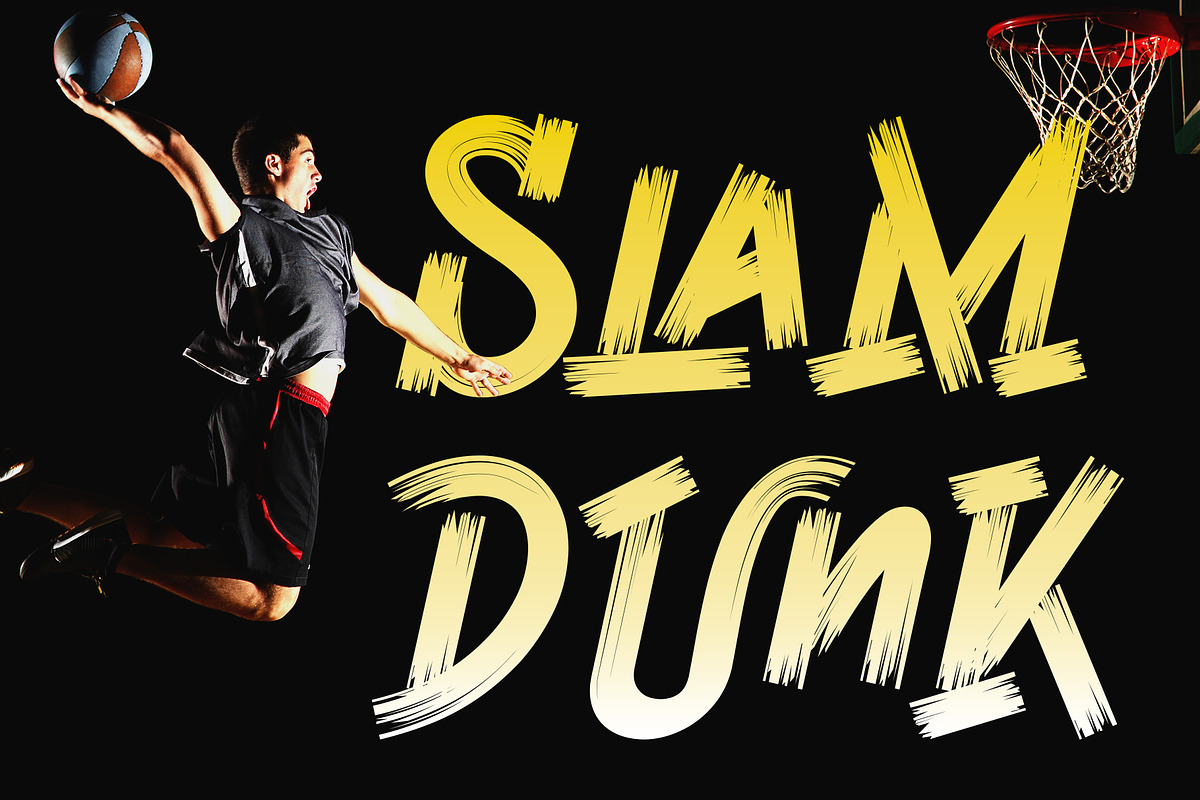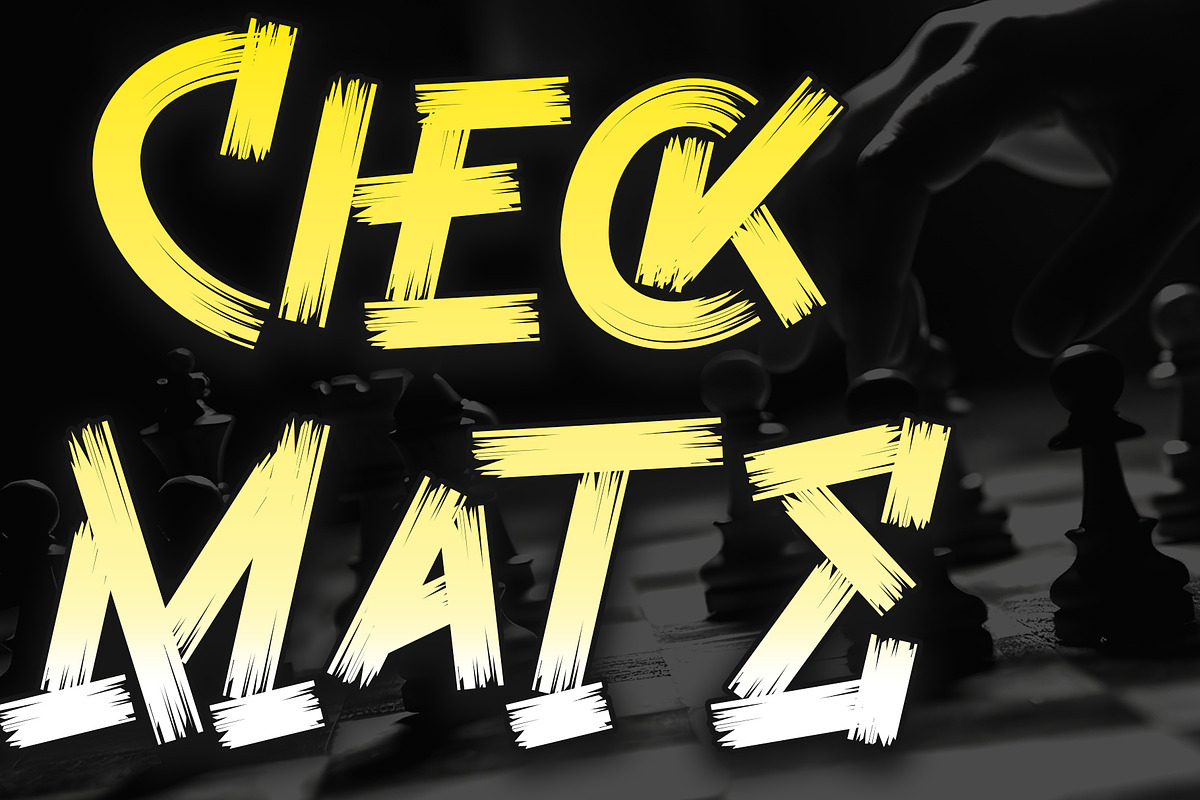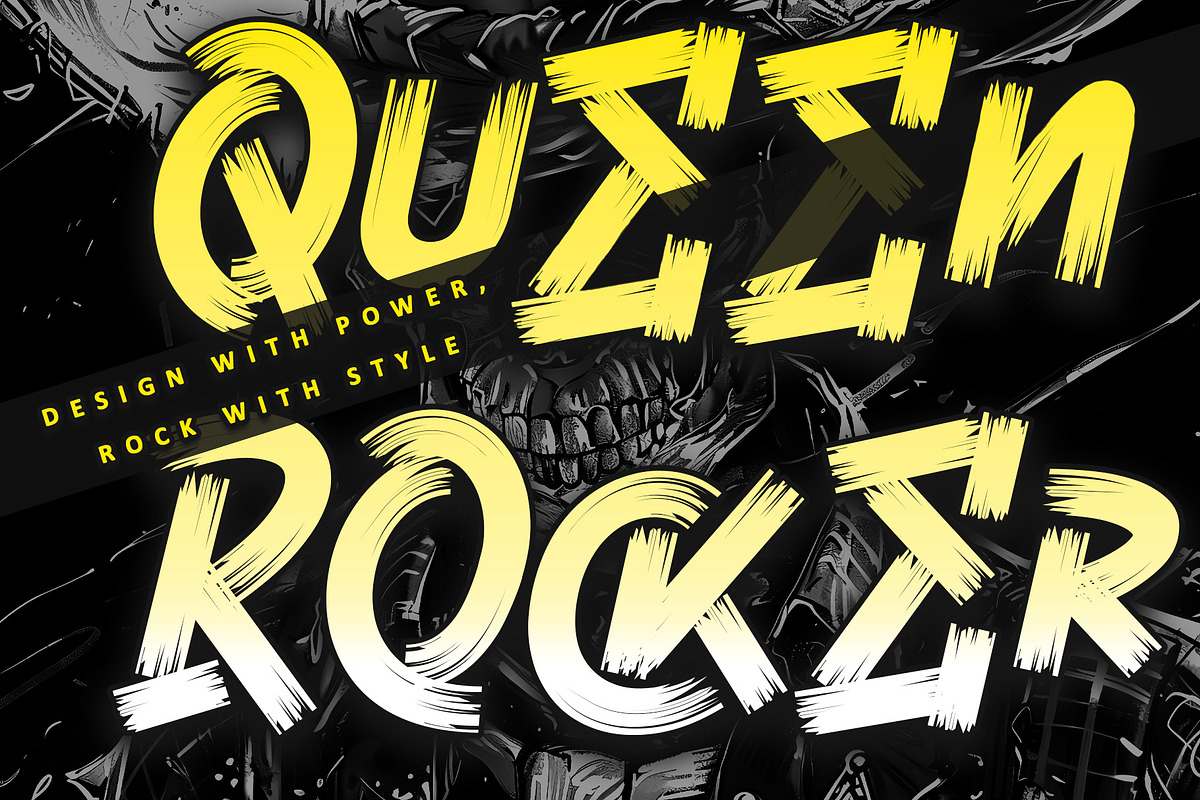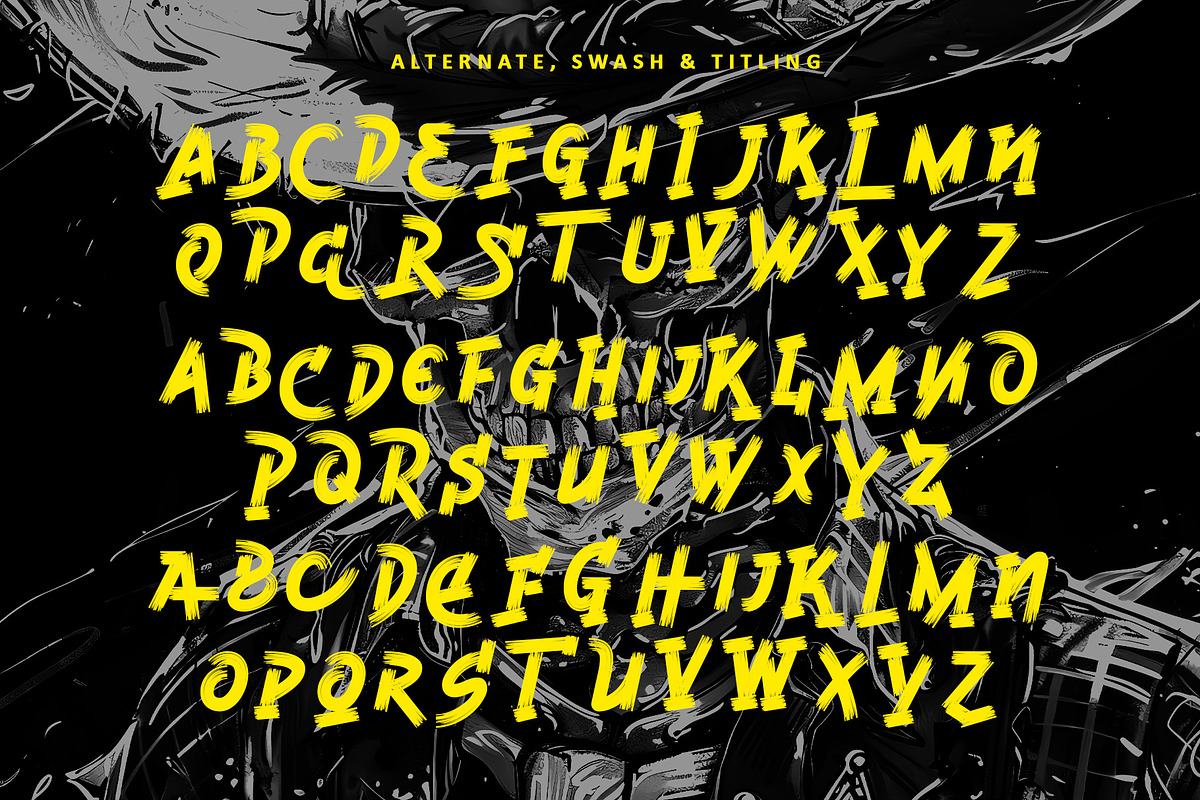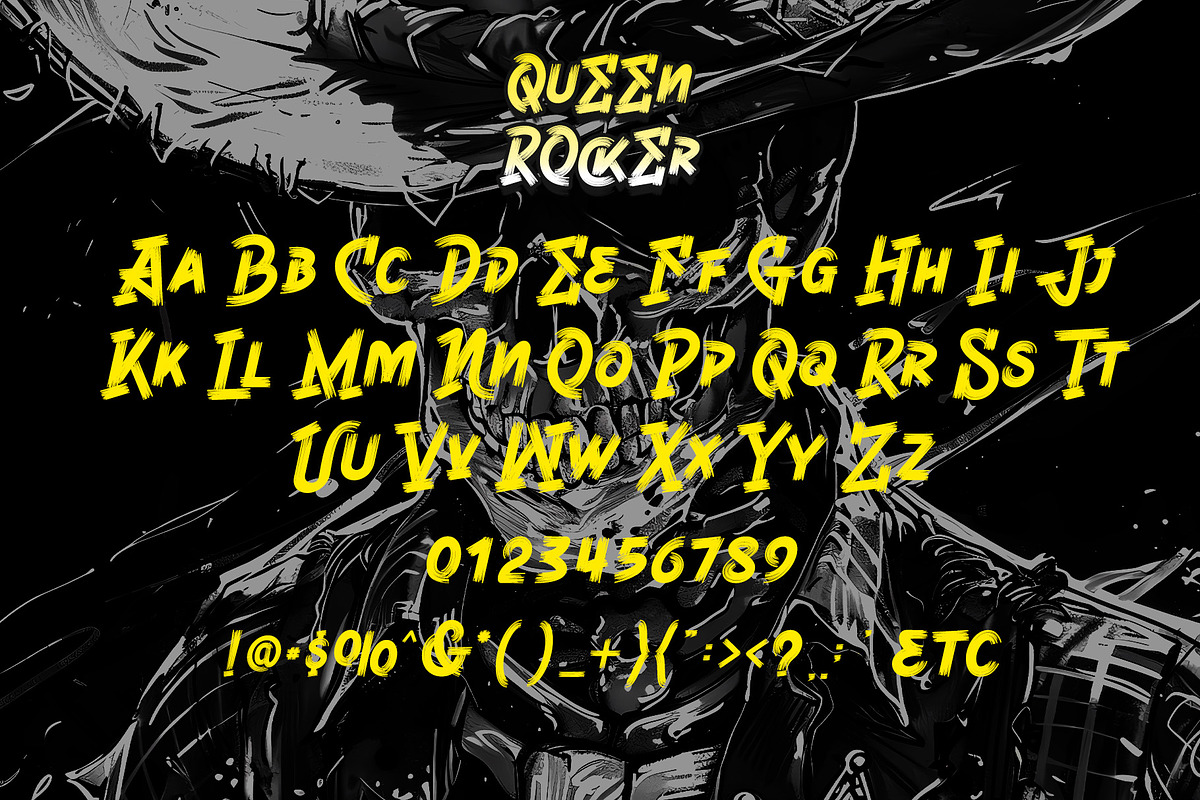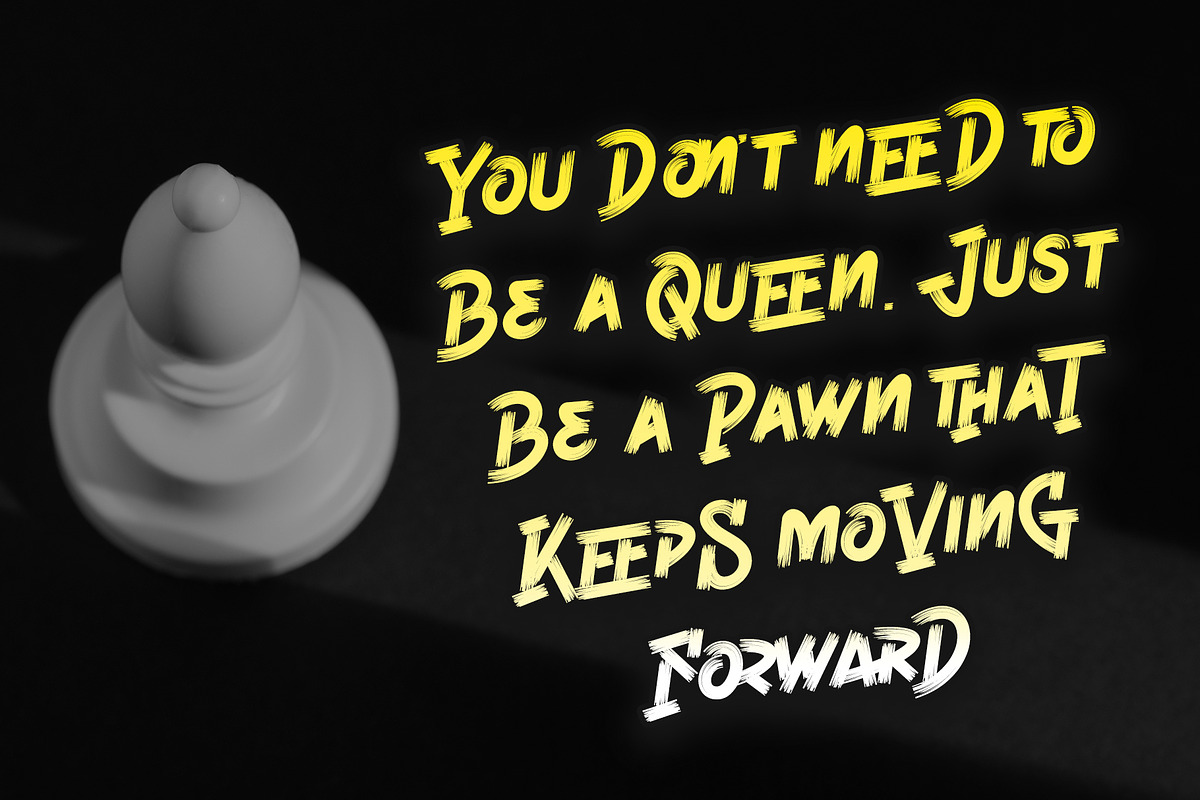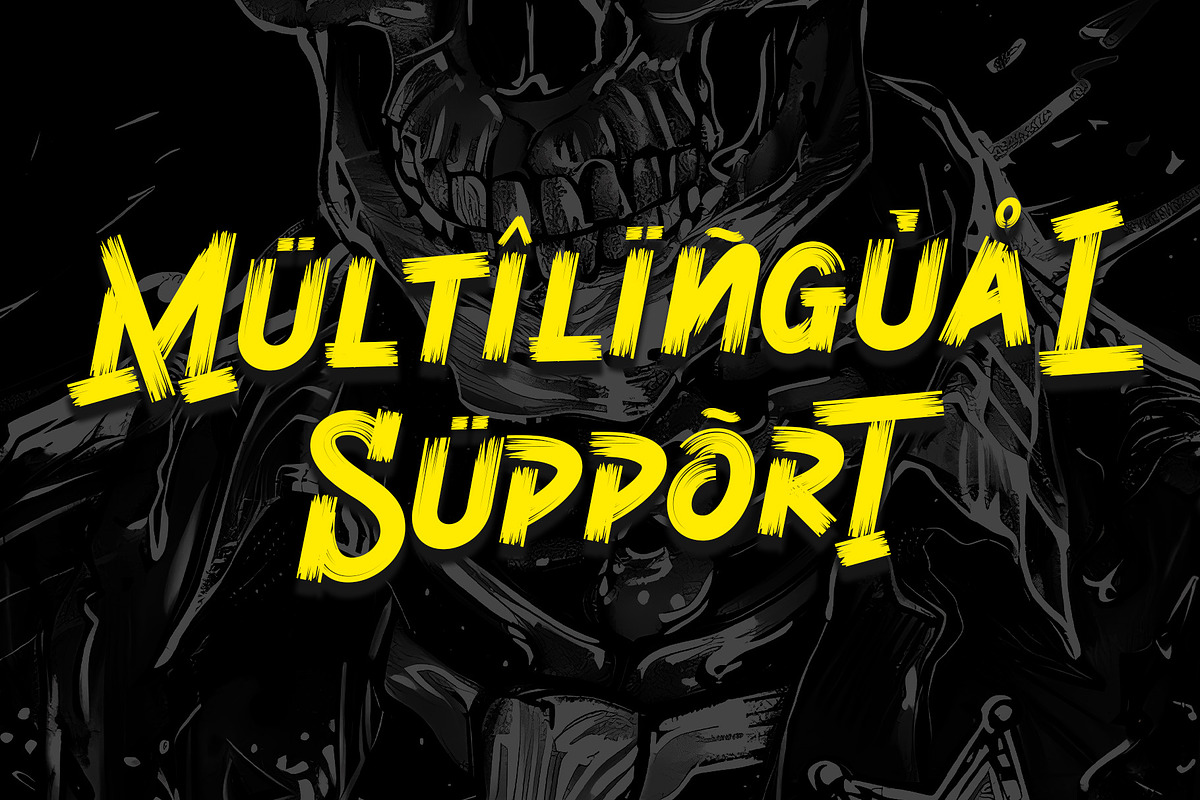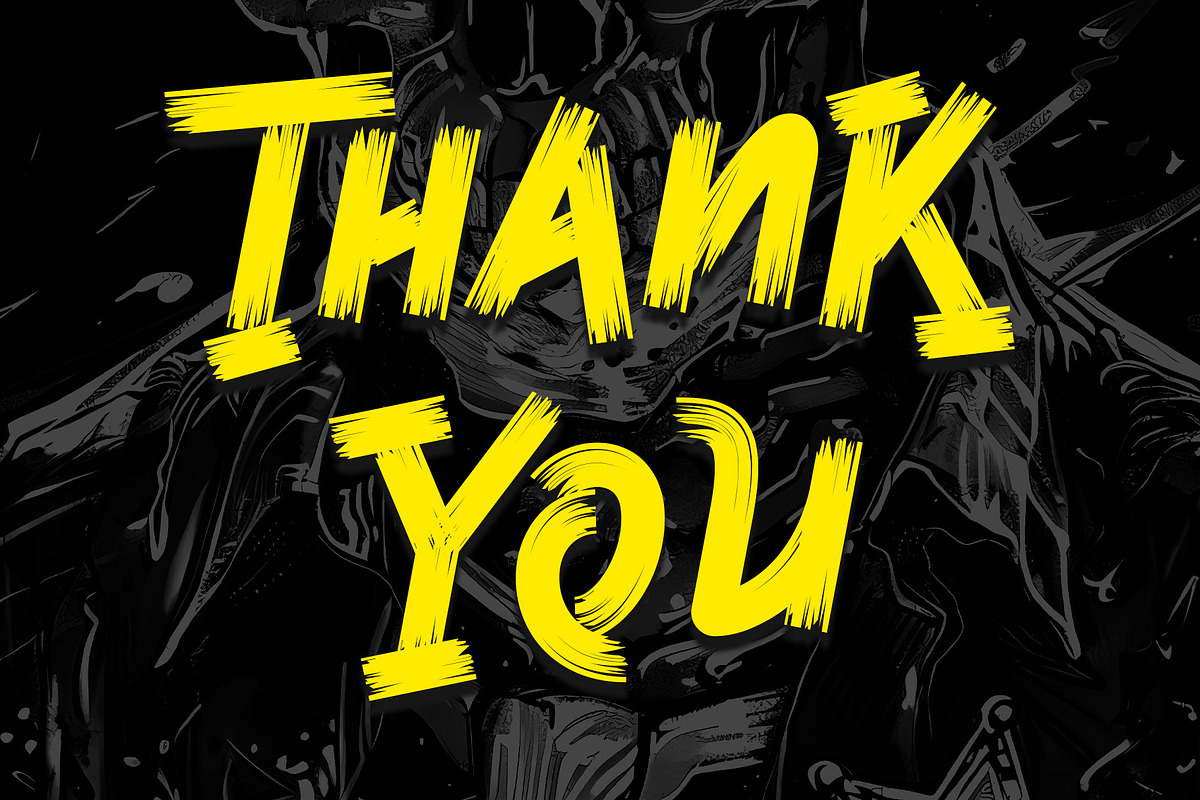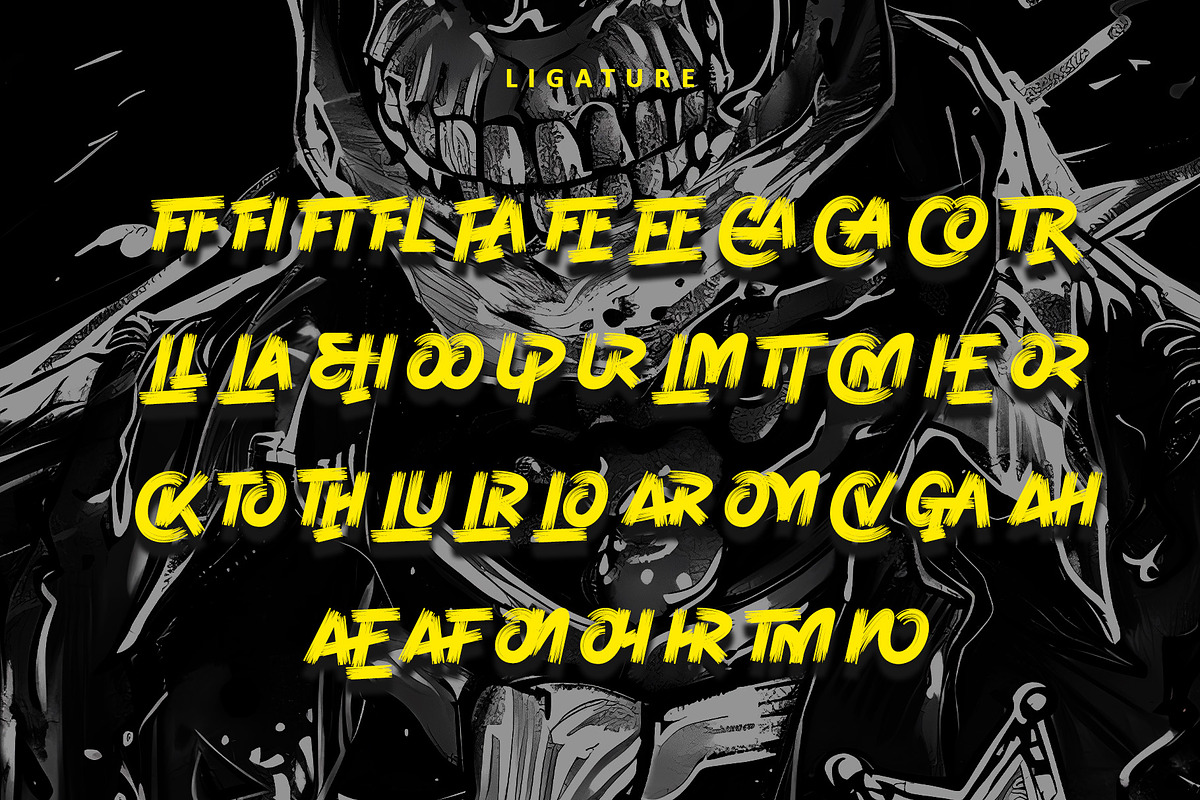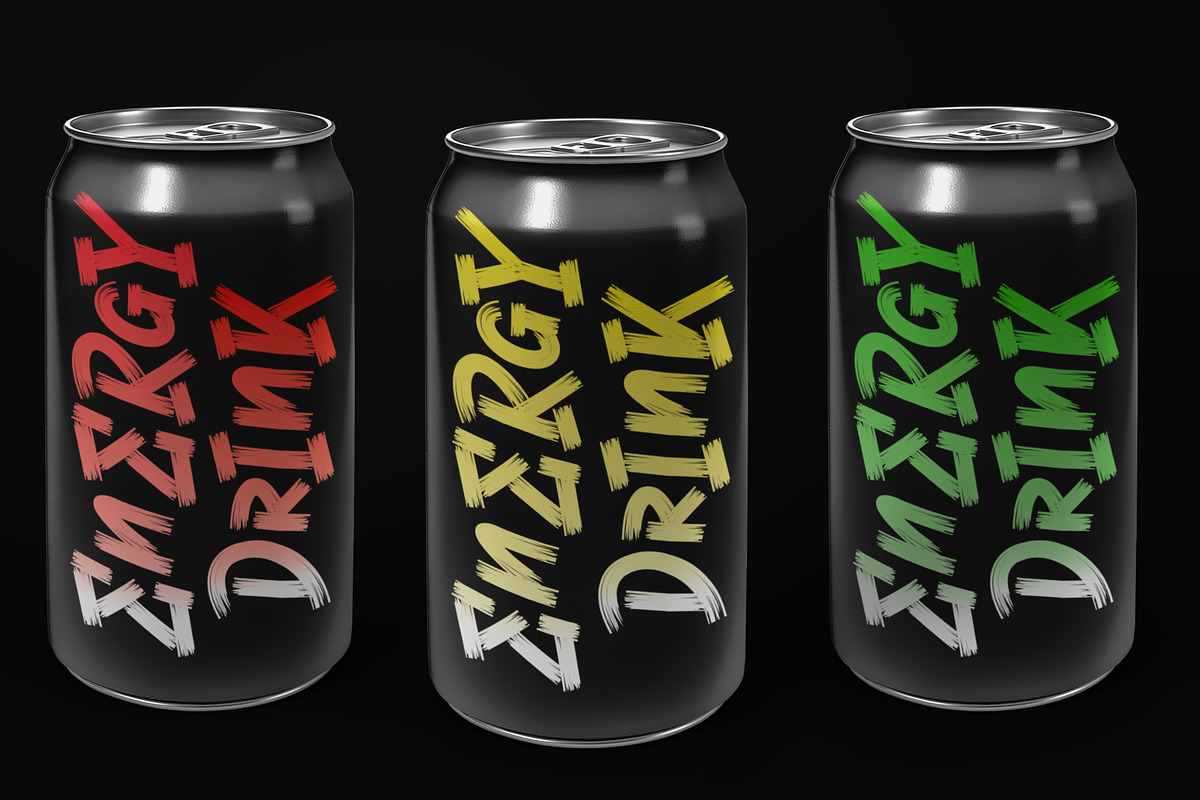
Queen Rocker
Introducing Queen Rocker, a bold brush script font that radiates power and rebellious spirit. With its fierce strokes and rugged texture, this font brings a dynamic and unapologetic edge to your designs. Perfect for logos, posters, album covers, and any project that craves a strong, commanding presence. The fluidity of its lines and the intensity of its glyphs make it ideal for conveying energy and attitude. PUA encoding allows for effortless access to all its unique features. Elevate your creative projects with Queen Rocker, a font that channels the raw force of rock and roll into every letter.
Features:*
Support multilingual; ä ö ü Ä Ö Ü ß ¿ ¡
lowercase and uppercase letters
Ligature, swash, alternate, and Titling